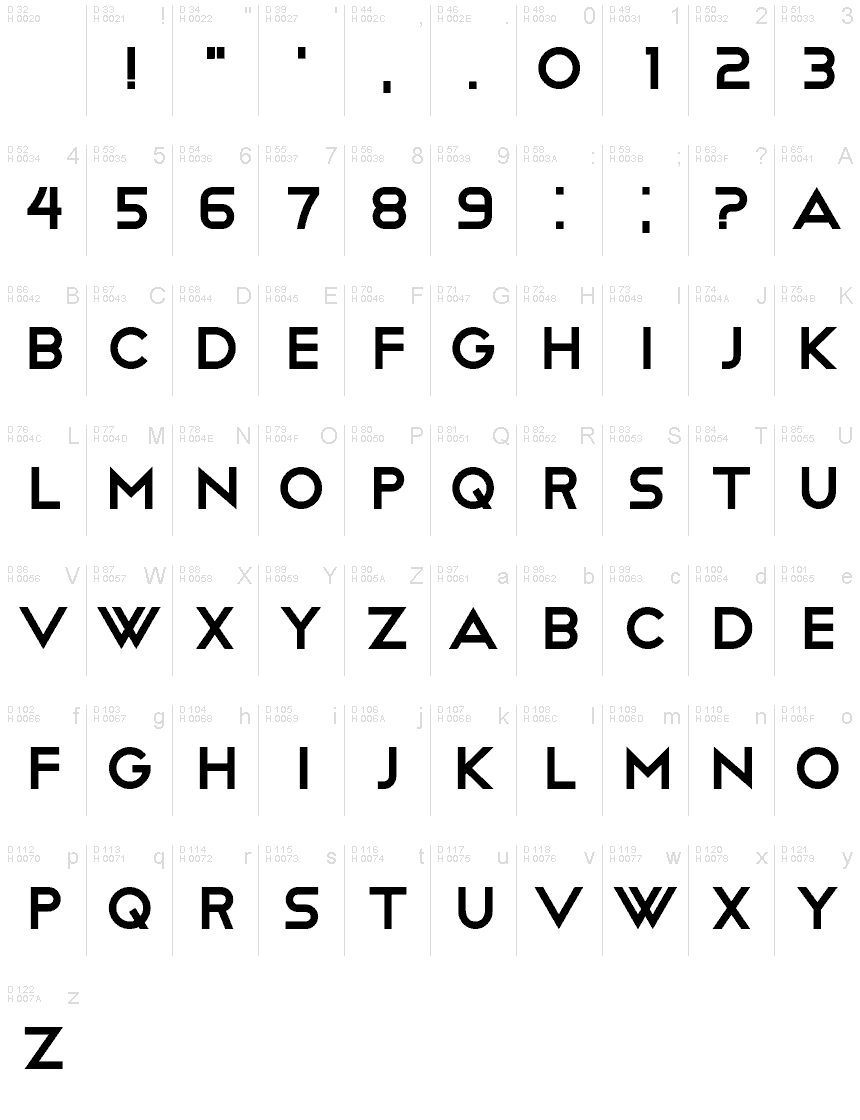
Sasha Regular
Sasha font is a sans serif, expanded-width, free font by Vladimir Nikolic. A modern typeface at its core, the font implements lots of geometric shapes within its streamlined letterforms. This subsequently gives it a minimalist and futuristic overall appearance.
Different projects like posters, logotypes, ads, website banners/social media ones can all benefit. Even printed papers like brochures/flyers or business cards too. Sasha works on digital/physical user interfaces of all kinds such as websites and mobile applications.